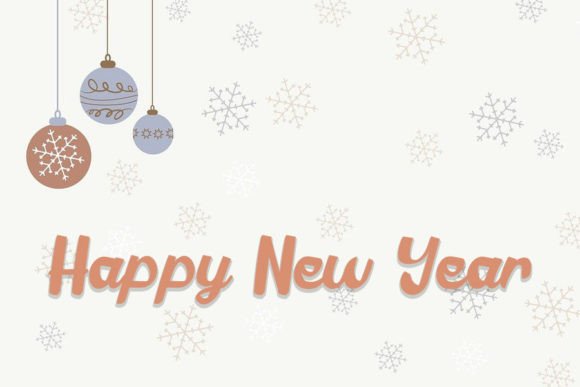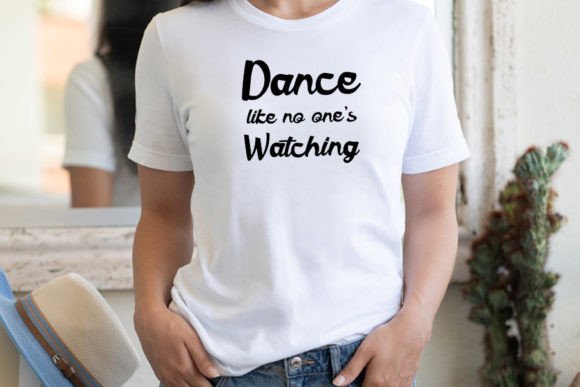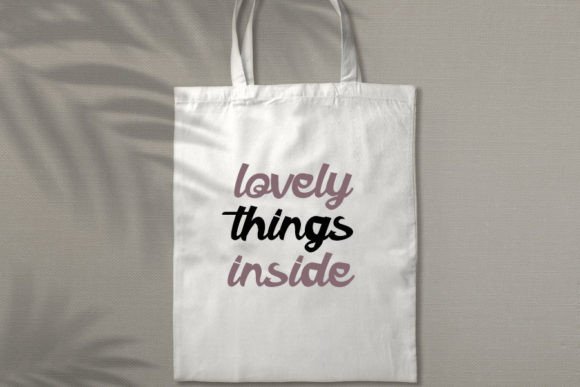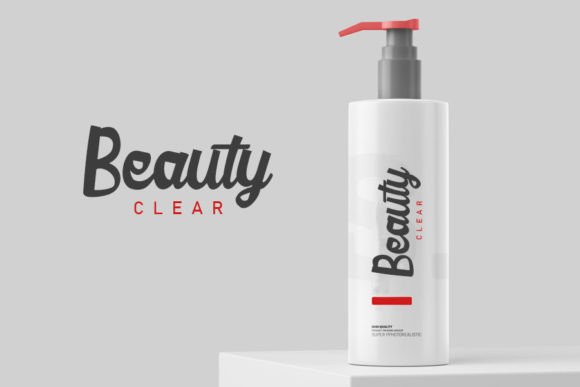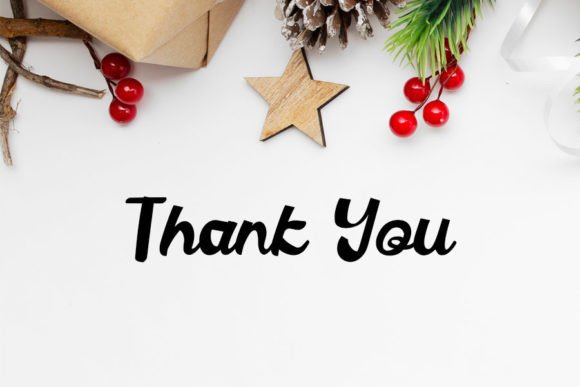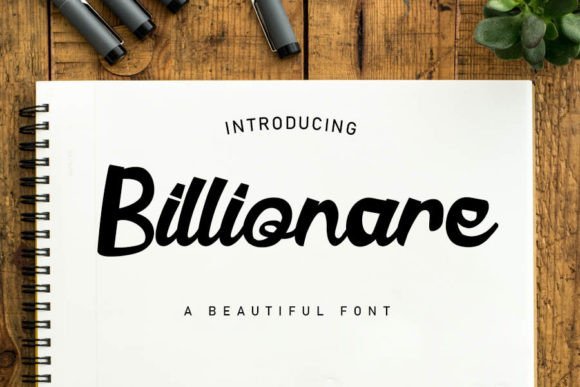
Billionare Font: The Ultimate Display Font for Creative and Playful Designs
Are you tired of using the same old fonts in your designs? Do you want to add a touch of fun and playfulness to your creative projects? Look no further than the Billionare Font! This bold and cheerful display font is perfect for designers and crafters who want to make a statement with their typography.
What is Billionare Font?
Billionare Font is a fun, bold, and cheerful display font that is sure to bring a smile to your face. Its chubby characters and lighthearted nature make it a must-have in your fonts library. This font is perfect for use in a variety of design projects, from posters and flyers to social media graphics and branding materials.
Key Features of Billionare Font
- Bold and Cheerful: Billionare Font is a bold and cheerful display font that is sure to grab attention.
- Chubby Characters: The font features chubby characters that give it a playful and fun feel.
- Lighthearted Nature: The font has a lighthearted nature that makes it perfect for use in creative and playful designs.
- Easy to Read: Despite its bold and playful nature, Billionare Font is easy to read, even at smaller sizes.
Why Use Billionare Font?
So, why should you use Billionare Font in your designs? Here are just a few reasons:
- Add a Touch of Fun: Billionare Font is the perfect way to add a touch of fun and playfulness to your designs.
- Stand Out from the Crowd: With its bold and cheerful nature, Billionare Font is sure to help your designs stand out from the crowd.
- Perfect for Creative Projects: This font is perfect for use in creative projects, such as posters, flyers, and social media graphics.
- Use it as a Display Font: Billionare Font is perfect for use as a display font, making it ideal for headlines and titles.
- Pair it with Other Fonts: Pair Billionare Font with other fonts to create a unique and interesting typography combination.
Design Ideas Using Billionare Font
Here are just a few design ideas that you can use Billionare Font for:
- Poster Design: Use Billionare Font to create eye-catching posters for events, promotions, and more.
- Social Media Graphics: Use the font to create fun and engaging social media graphics, such as Facebook posts and Instagram stories.
- Branding Materials: Use Billionare Font to create branding materials, such as business cards and brochures.
- Crafting Projects: Use the font to create fun and playful crafting projects, such as signs and banners.
In conclusion, Billionare Font is a fun, bold, and cheerful display font that is perfect for designers and crafters who want to add a touch of playfulness to their designs. With its chubby characters and lighthearted nature, this font is sure to bring a smile to your face. So why wait? Download Billionare Font today and start creating fun and engaging designs!